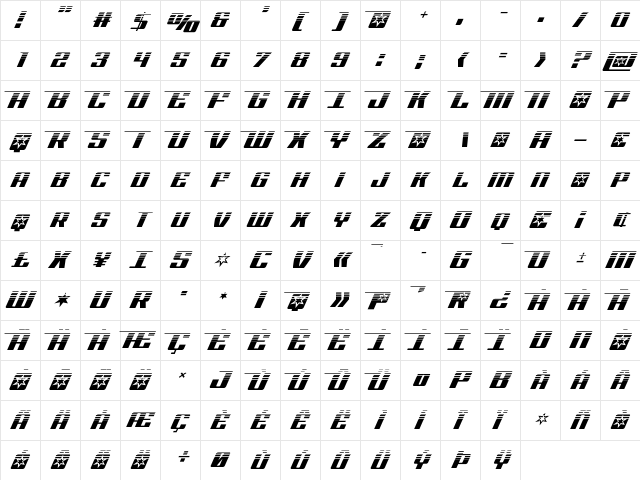
Rocket Pop Halftone Regular Font Preview
Rocket Pop Halftone Regular
Design Context for Rocket Pop Halftone Typeface
Rocket Pop Halftone is a composed and adaptable typeface that performs quietly and consistently across a wide range of design contexts.